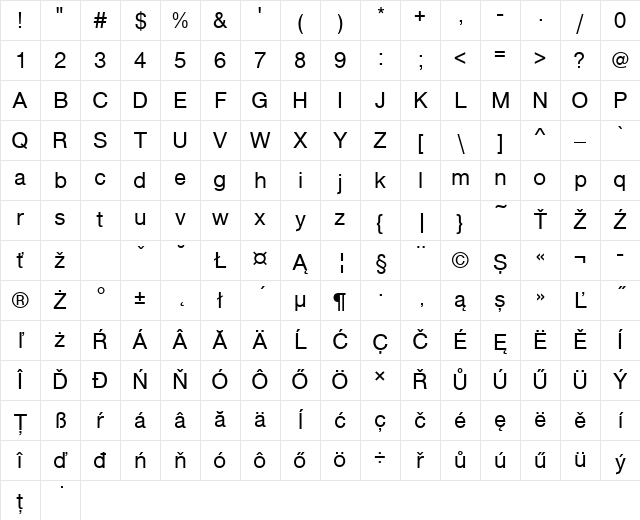
NimbusSanNo5TEE Regular
Complete NimbusSanNo5TEE Regular glyph index. Displaying only characters natively supported by NimbusSanNo5TEE Regular font.
Design Context for NimbusSanNo5TEE
NimbusSanNo5TEE is a composed and adaptable typeface that performs quietly and consistently across a wide range of design contexts.